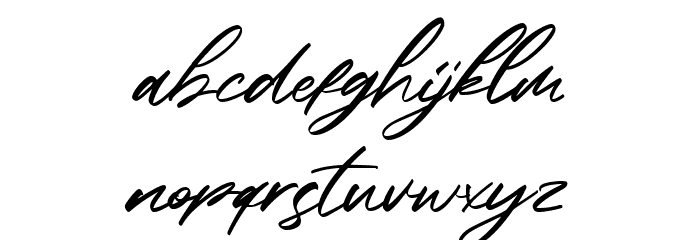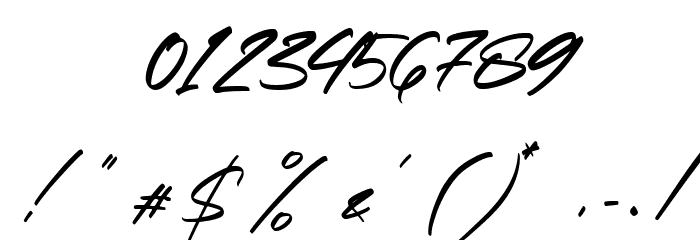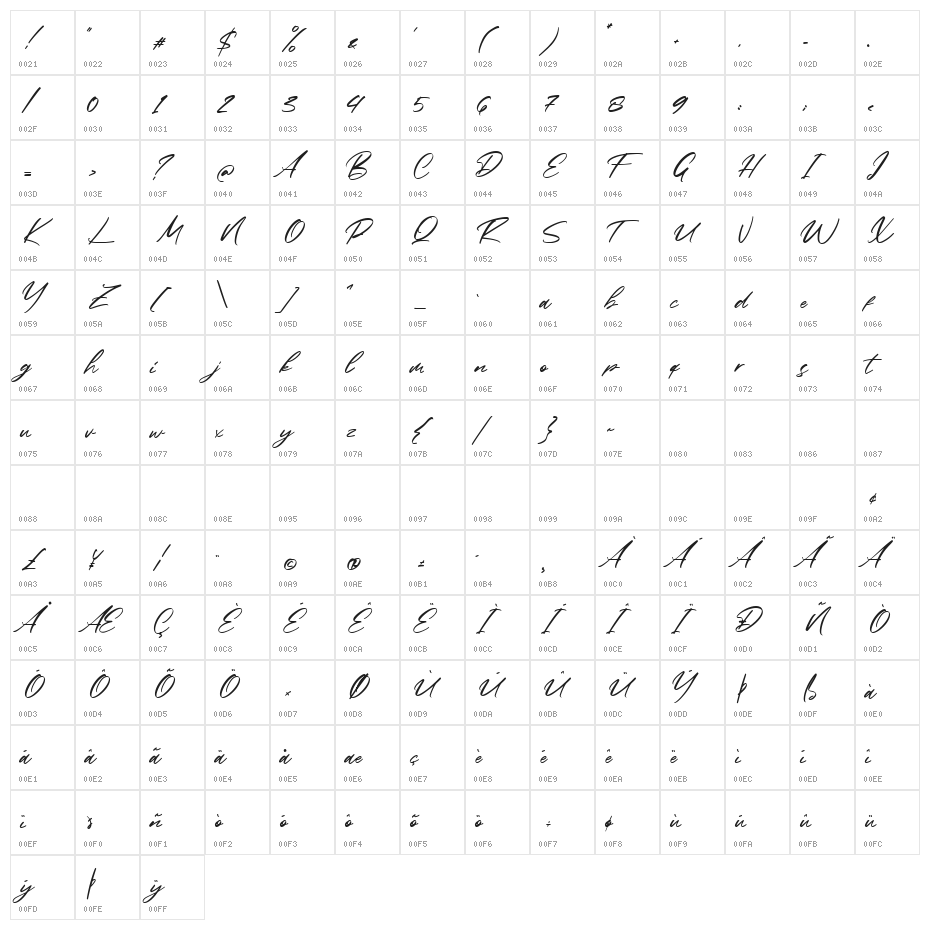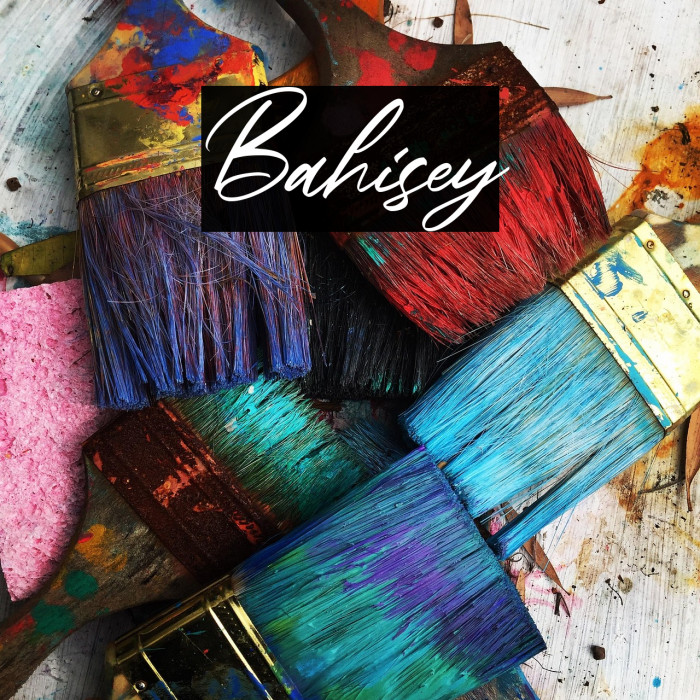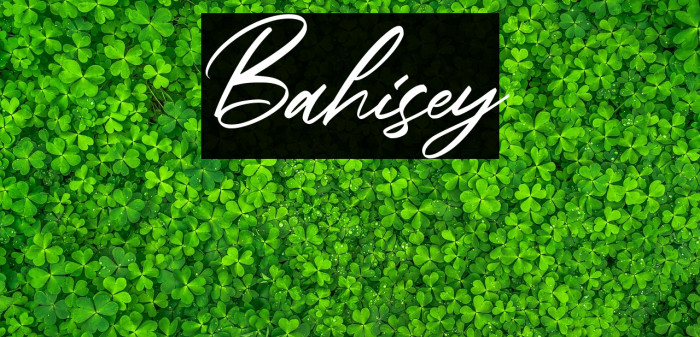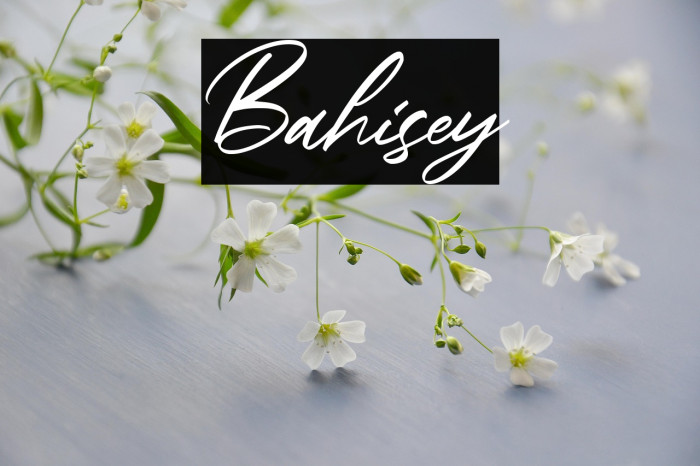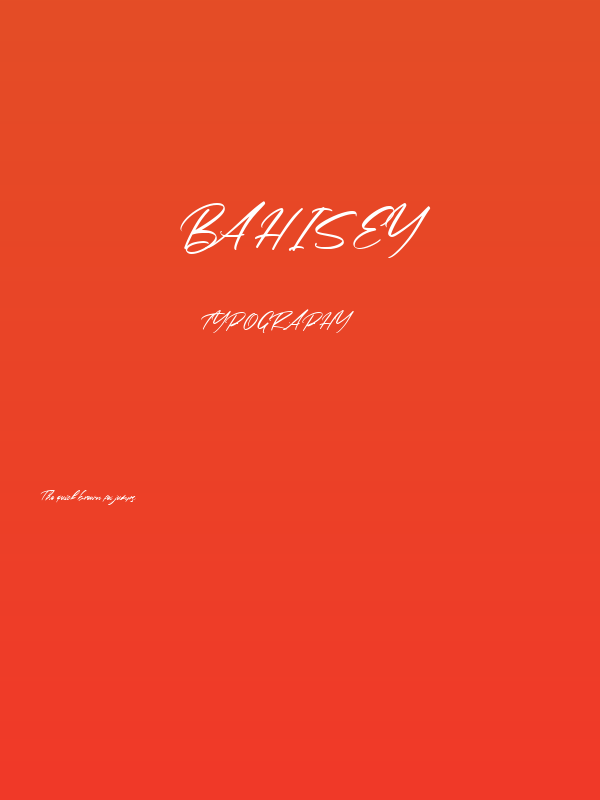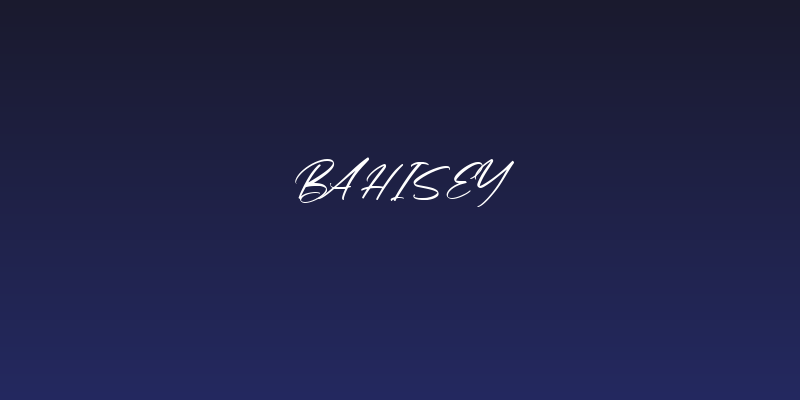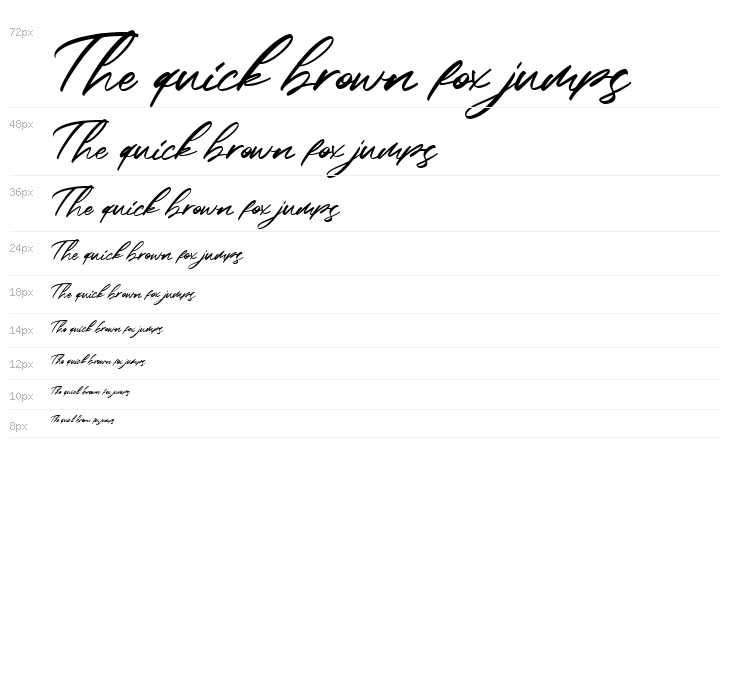
Bahisey Font
This font exudes a dynamic and elegant script style, characterized by its fluid, cursive strokes that mimic natural handwriting. The letters are interconnected, creating a seamless flow that enhances its sophisticated appearance. The uppercase letters are bold and slightly exaggerated, while the lowercase letters maintain a consistent rhythm, contributing to its overall legibility. The numerals and special characters follow the same cursive style, ensuring uniformity across all elements. This font is perfect for adding a personal touch to any design, making it ideal for invitations, branding, and artistic projects.
A dynamic and elegant script font with fluid, cursive strokes.
- Proposed Projects: Ideal for wedding invitations, personal branding, artistic projects, and elegant packaging designs.
- Overall Style: Elegant